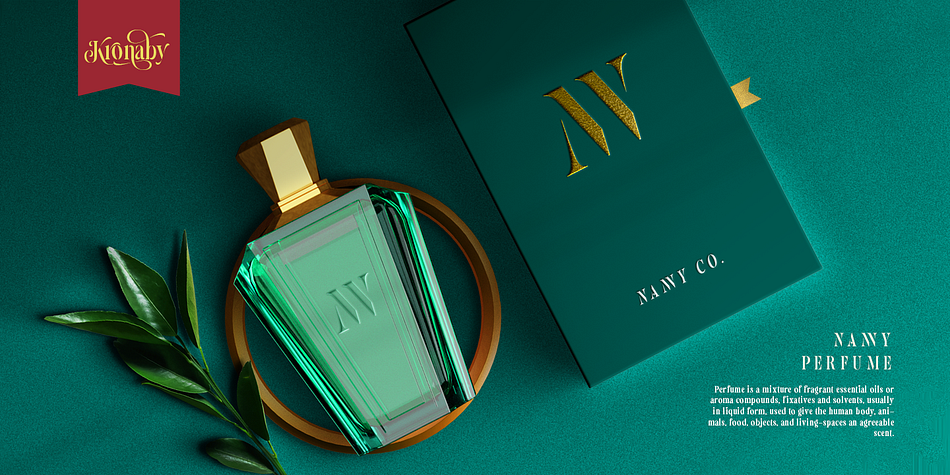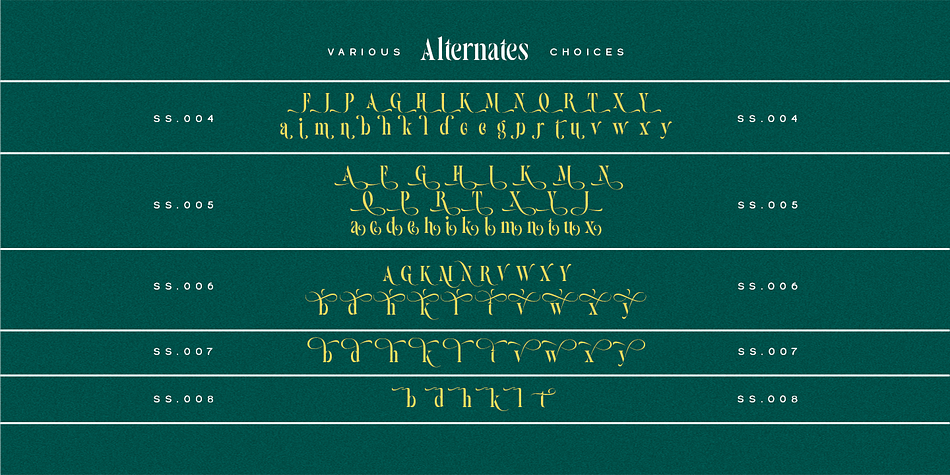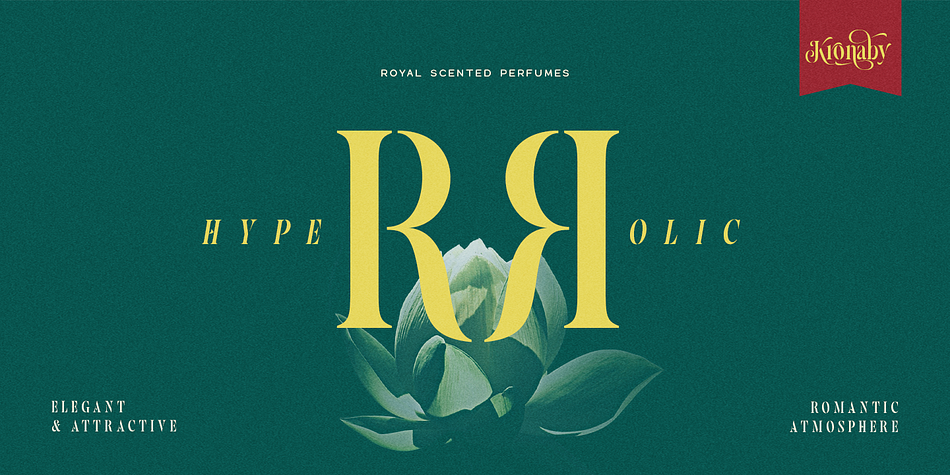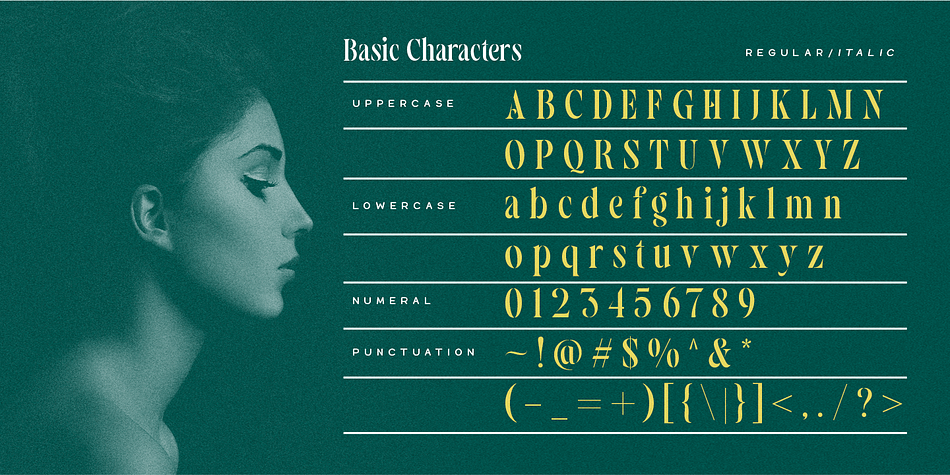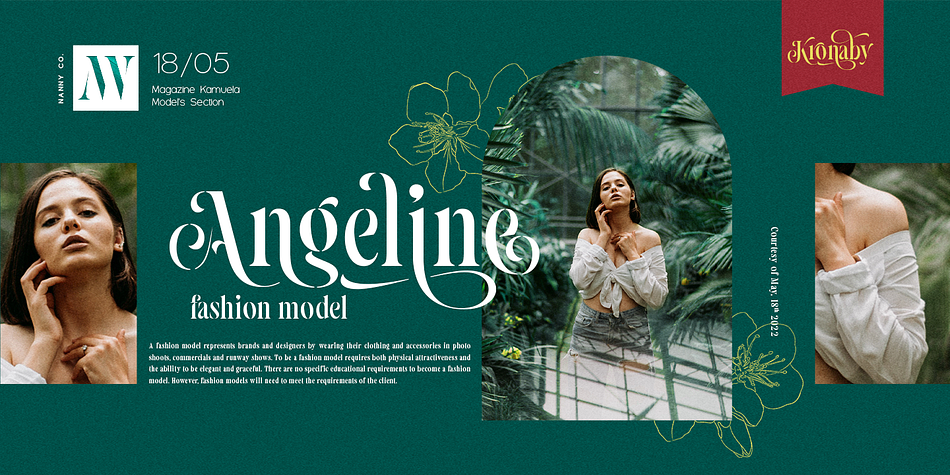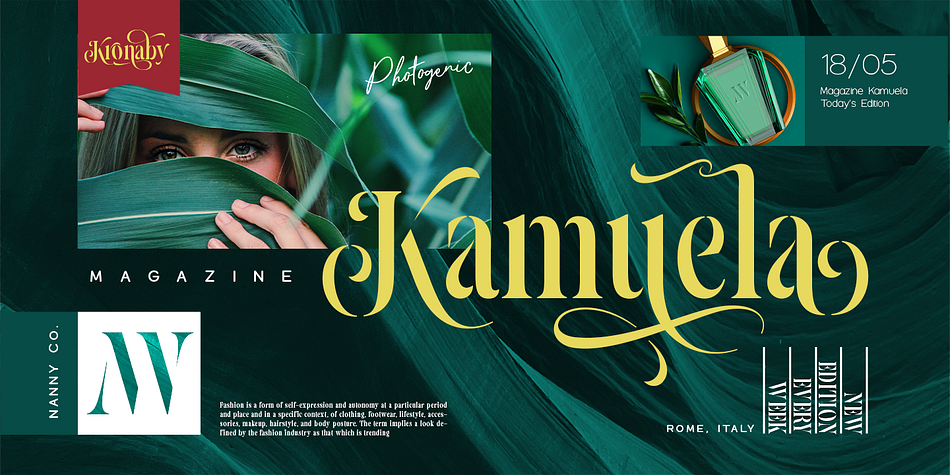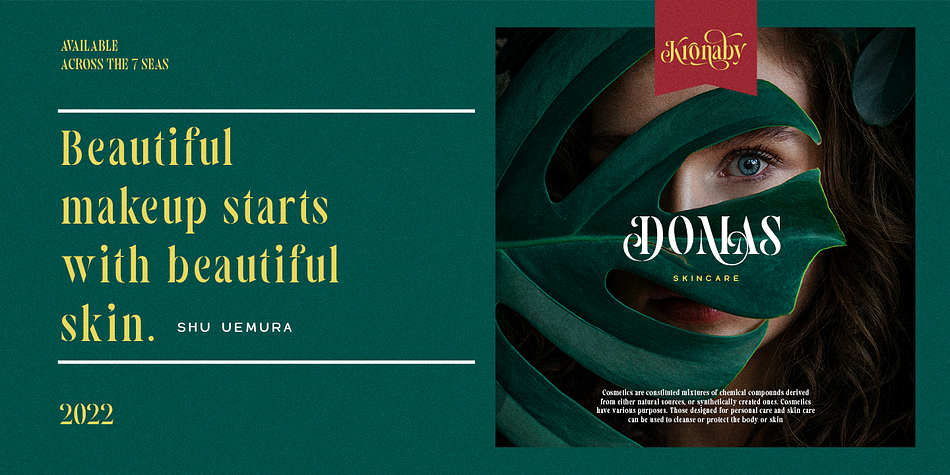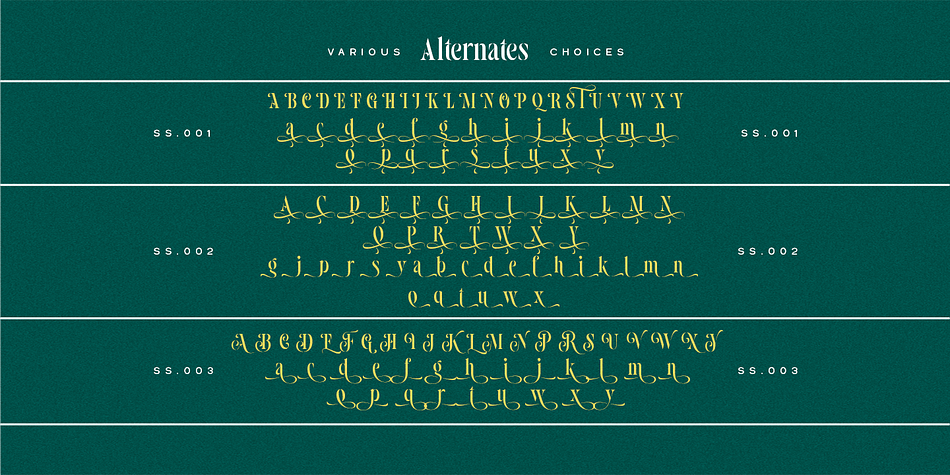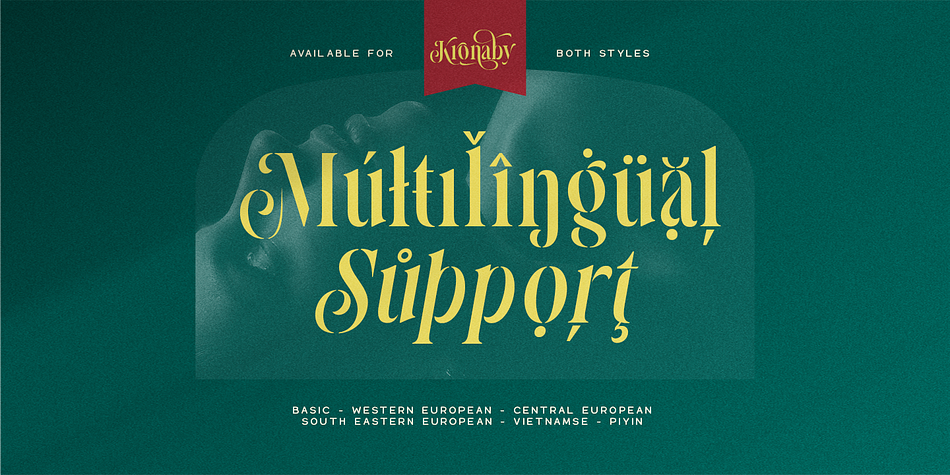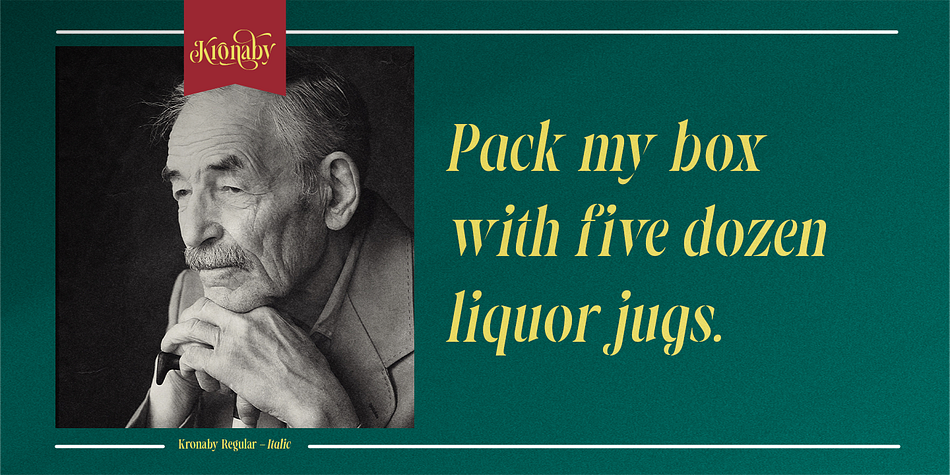
Designed by Alit Suarnegara, Kronaby is a display, display serif and stencil font family. This typeface has two styles and was published by Alit Design.
We want to create a different feel for the stencil font style. Usually stencil fonts are synonymous with military, retro and bold characters, but here we created the Kronaby font with an elegant and attractive stencil style for a modern design, combined with a subtle swash. In addition to swash in the Kronaby font, there are also many alternative character shapes and unique Discreationary ligatures. So the Kronaby font is very worthy of being a font collection on your computer for projects with a unique and charming elegant concept.
Serif typefaces such as “Kronaby” are very easy to apply to any design, especially those with an elegant, modern and classic, besides that this font is very easy to use both in design and non-design programs because everything changes and glyphs are supported by Unicode (PUA).
The “Kronaby"contains 756 glyphs with many unique and interesting alternative options. In addition to the regular font, there is also an italic version of the Kronaby font.